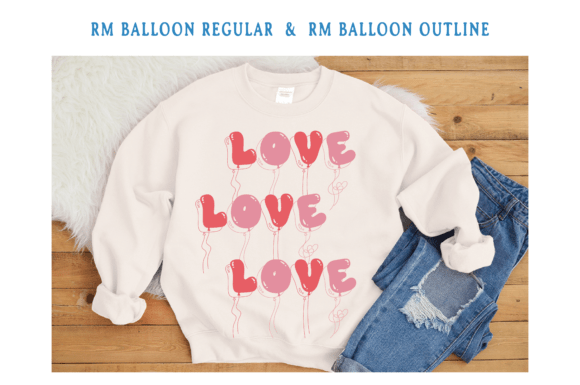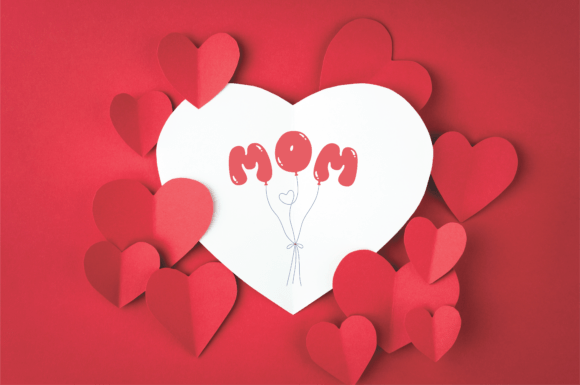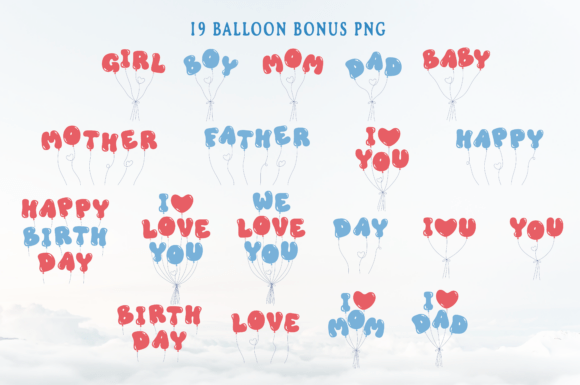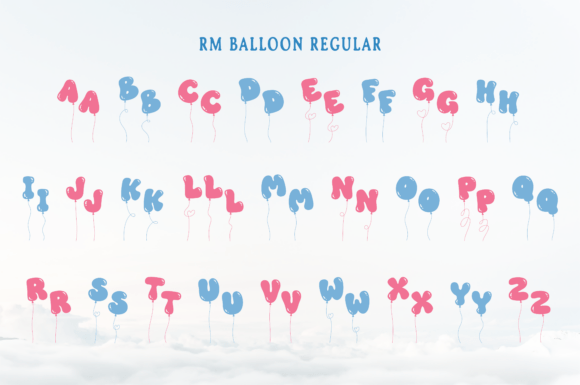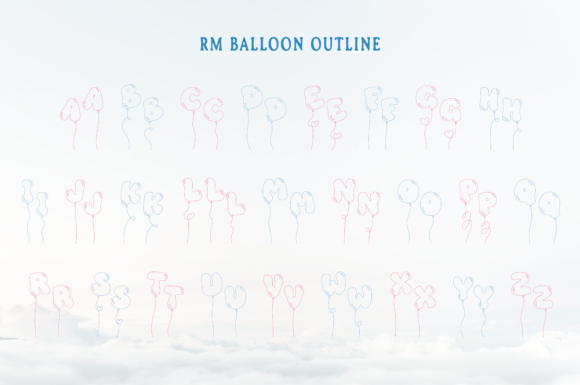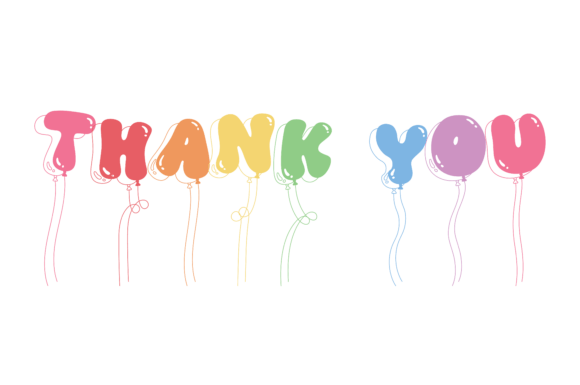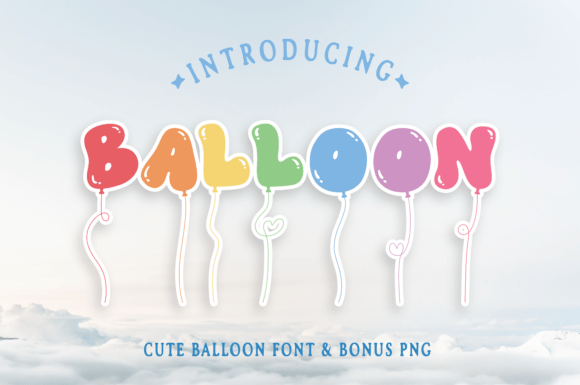
Pop into Creativity with the Balloon Font
Have you ever found yourself staring at a blank page, struggling to bring your creative ideas to life? We’ve all been there. But what if you had the perfect tool to unlock your imagination and make your designs truly sparkle? Enter the Balloon Font, a delightful combination of outlined and filled lettering that’s sure to add a playful touch to any project.
This charming font is designed to bring a smile to your face and inspire creativity in designers of all levels. With its light-hearted appeal and adorable style, it’s the perfect addition to any kid-inspired or cute project. Whether you’re working on t-shirt designs, mugs, books, or school projects, the Balloon Font is the ideal choice to make your creations stand out.
Balloon Font Key Features
- Font Style: A unique, playful font with rounded shapes and soft lines, reminiscent of balloons.
Designer Review: Balloon Font
Overall, I’m quite impressed with the playful and whimsical vibe of Balloon Font. It’s perfect for those looking for a fun, casual font that’s sure to grab attention. ✨ Here are some things that work well:
- Unique and quirky design: The balloon-inspired shapes make it stand out from more traditional fonts.
- Customization options: The font family comes with various weights and styles, allowing for a lot of creative flexibility.
- Good for titles and headings: Balloon Font is ideal for use in headings and titles, where you want to add a touch of playfulness.
- Legibility issues: In smaller sizes, the font can become difficult to read due to the irregular shapes and uneven letterforms.
- Limited font sizes: The font may not be suitable for large blocks of text, as it can become overwhelming and hard to follow.
- Not ideal for body text: While it’s great for headings, Balloon Font may not be the best choice for body text due to its playful nature.
Overall, I’d give Balloon Font 4 out of 5 stars. It’s a fun and creative font that’s perfect for adding a touch of whimsy to your designs, but it’s not suitable for every project. Use it wisely, and you’ll be sure to create some amazing designs! ⚠️
Tips for Getting the Most Out of the Balloon Font
To get the most out of the Balloon Font, try experimenting with different font sizes, colors, and arrangements. You can also combine the Balloon Font with other text effects and graphics to create a unique look.
The Balloon Font is commonly used in:
- Playful marketing materials and advertisements
- Whimsical blog posts and social media graphics
Alternatives to Balloon Font for Designers
1. Comic Sans
Comic Sans is a sans-serif font that resembles handwritten text. It is often used for informal and playful designs, such as children’s books, comics, and social media posts.
Comparison to Balloon Font: While both fonts are playful and casual, Comic Sans is more suited for digital designs, whereas Balloon Font is more versatile and can be used for various mediums, including print.
Pacifico is a script font that resembles handwriting. It is often used for creative and elegant designs, such as wedding invitations, branding, and packaging.
Comparison to Balloon Font: Pacifico is more refined and sophisticated than Balloon Font, making it a better choice for high-end designs. However, Balloon Font is more energetic and playful, making it suitable for younger audiences.